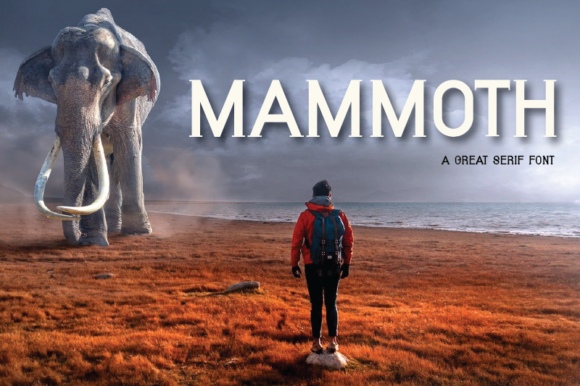
Enter the world of elegance and sophistication with Mammoth Font, the crown jewel of serif fonts, meticulously crafted by Smart Studio. Mammoth is not just a font; it's an experience that will elevate your designs to breathtaking heights. Let us unveil the captivating charm of Mammoth and unveil the boundless possibilities it holds for your creative endeavors.
Mammoth's majestic strokes dance across the page, exuding an aura of timeless beauty and grace. Each letterform is a masterpiece, meticulously designed to capture the essence of refinement and luxury. Its serifs, like tiny crowns, add an air of royalty to every word, transforming ordinary text into an extraordinary visual symphony.
With Mammoth as your design companion, you'll effortlessly create captivating branding that commands attention and leaves a lasting impression. Its regal presence will add an instant touch of class to your logos, business cards, and marketing materials, setting you apart from the mundane and propelling you into the realm of excellence.
Mammoth is not just confined to the digital realm; its versatility extends to the physical world as well. Its elegant curves and sweeping lines make it the perfect choice for wedding invitations, adding a touch of romance and sophistication to your special day. From the save-the-dates to the thank-you cards, Mammoth will ensure that every moment is etched in timeless beauty.
Unleash your creativity and explore the endless possibilities that Mammoth Font presents. Whether you're designing posters, flyers, or social media graphics, Mammoth will transform your words into works of art. Its timeless appeal transcends trends, making it an enduring choice for designers of all levels.
Don't settle for ordinary fonts that blend into the background. Embrace the power of Mammoth and watch your designs come alive with newfound elegance and sophistication. Experience the Mammoth difference today and embark on a journey of creative excellence.